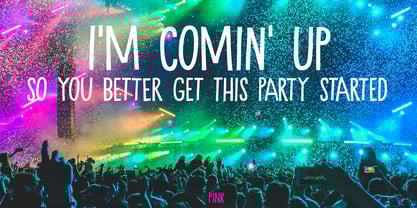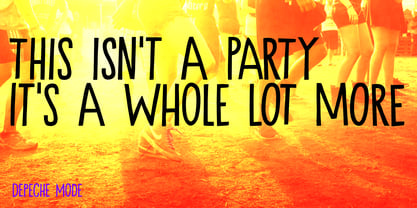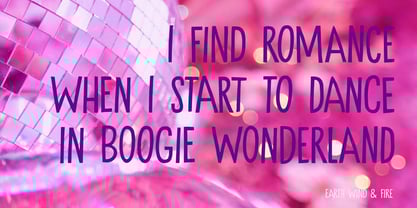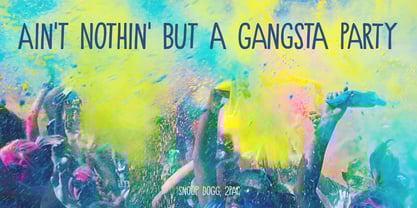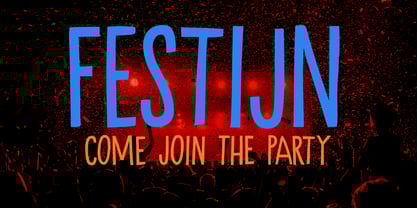
The Festijn Font Family was designed by David Kerkhoff and published by Kitchen Table Type Foundry. Festijn contains 2 styles and family package options.
Festijn - in Dutch - means ‘festival’, ‘party’, or ‘happening’, depending on the word you use before. So a ‘dansfestijn’ is a dance party and an ‘eetfestijn’ is a food festival.
Festijn is a handmade, all caps, tall & thin font. Use it for your party posters, your food truck menus or just like it is - because you like it so much!